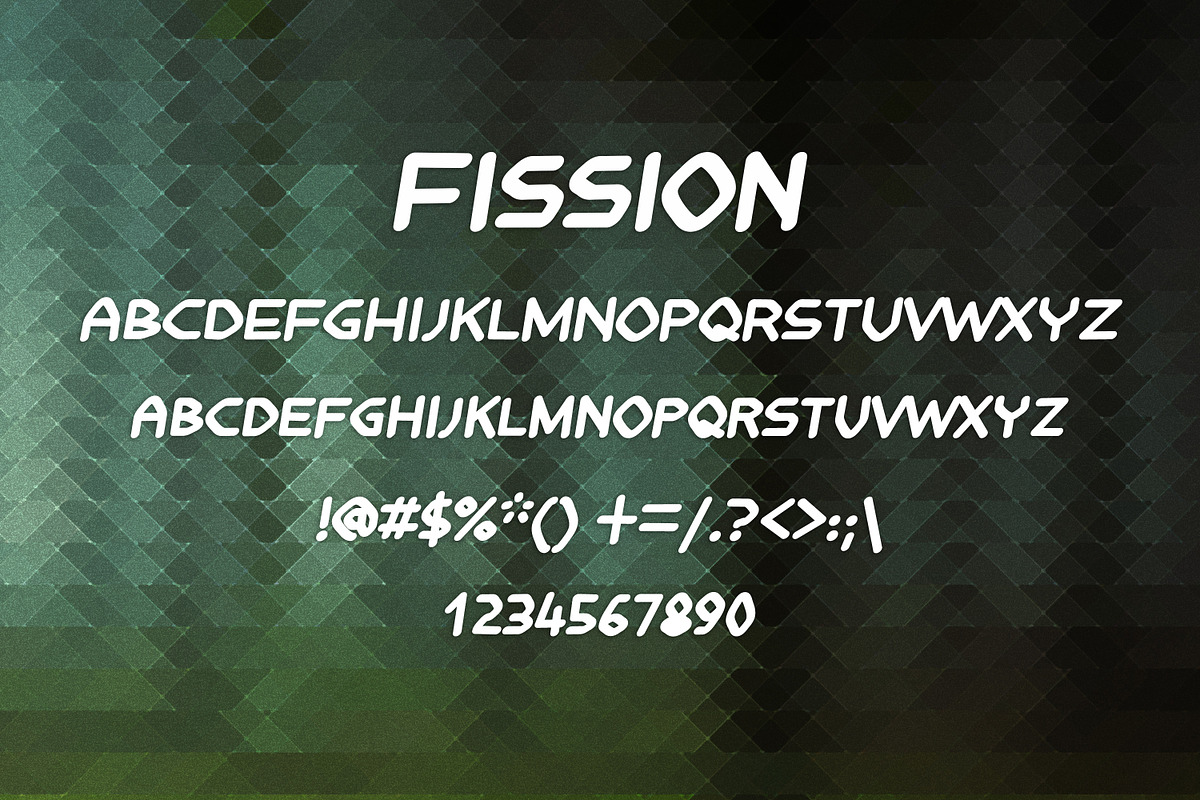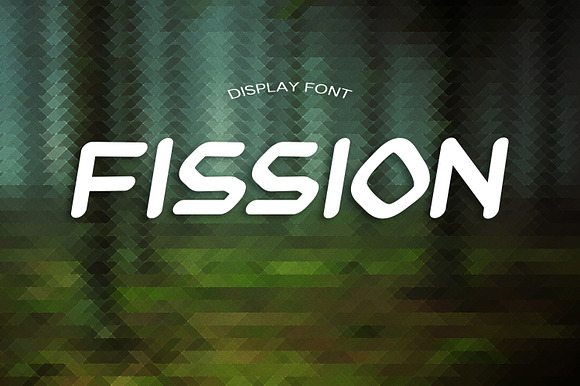
FISSION font
- Fission regular
Why FISSION font is worth a look
FISSION font by DmDesignsStoreArt fits naturally into Branding, posters, packaging, typography.